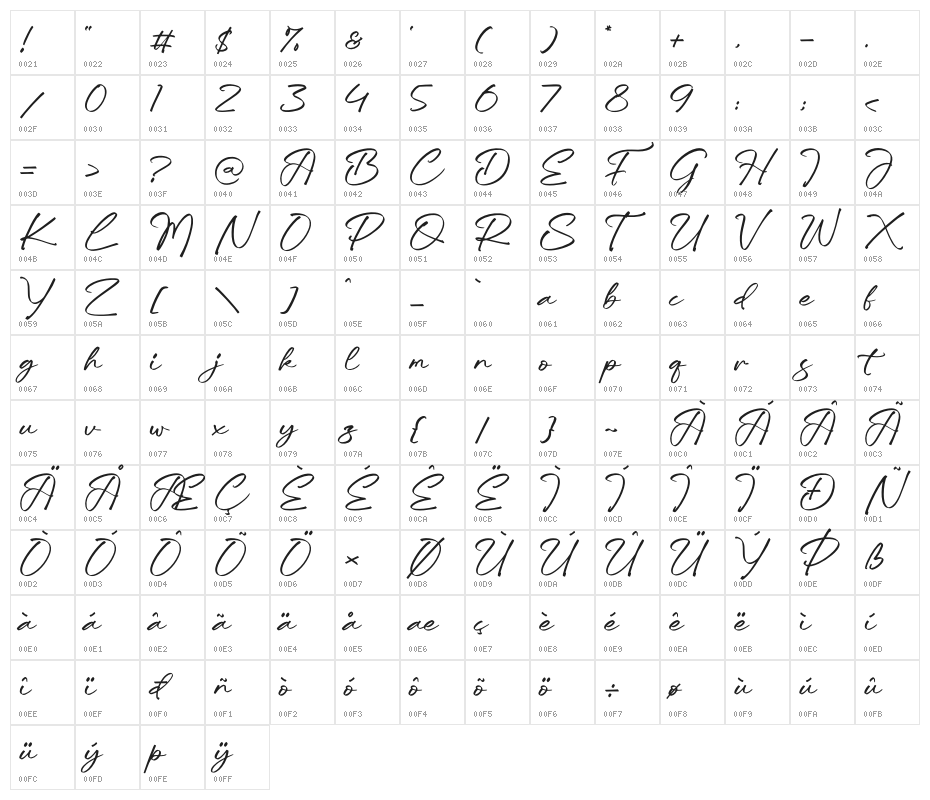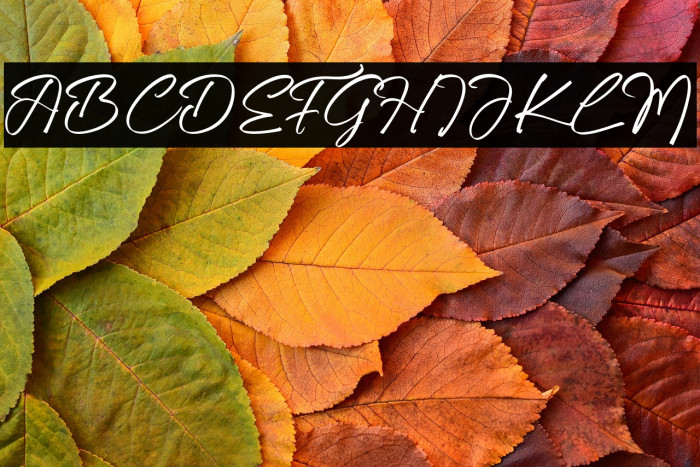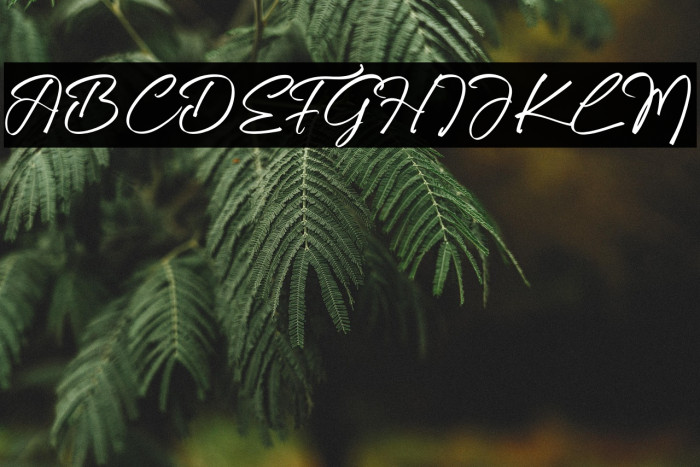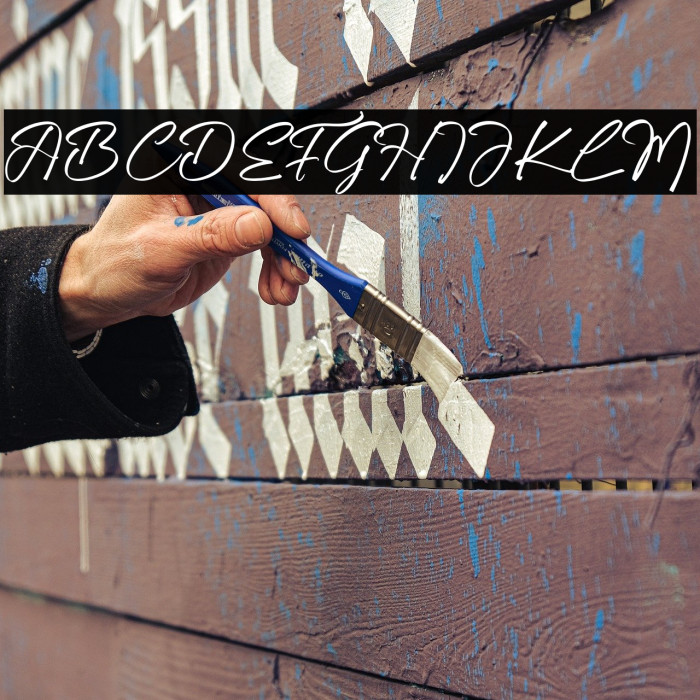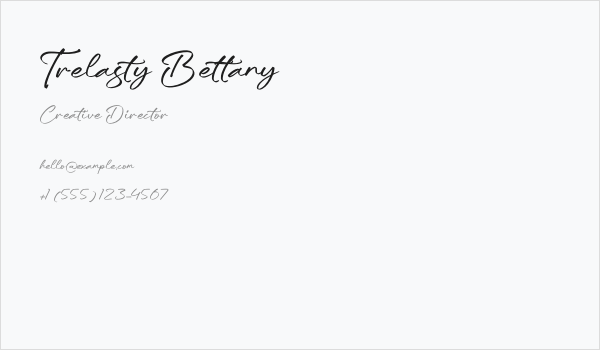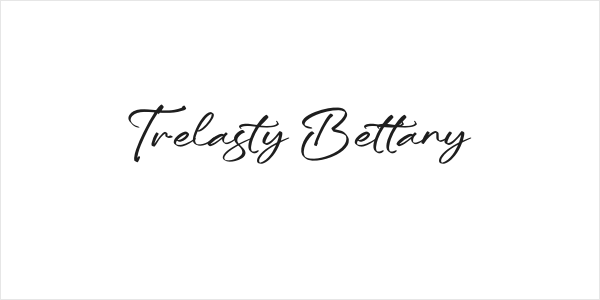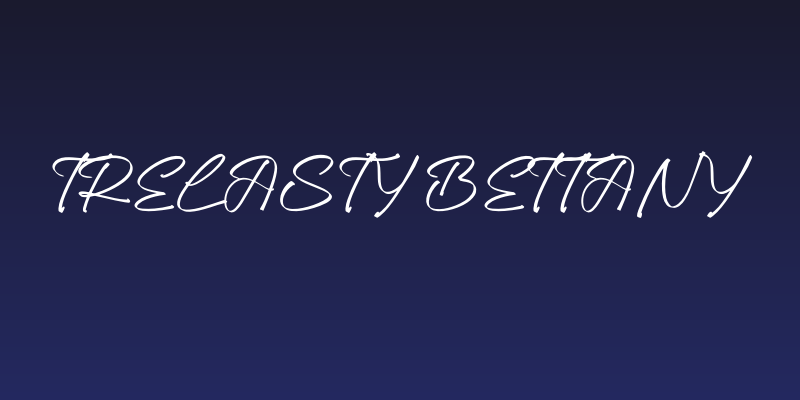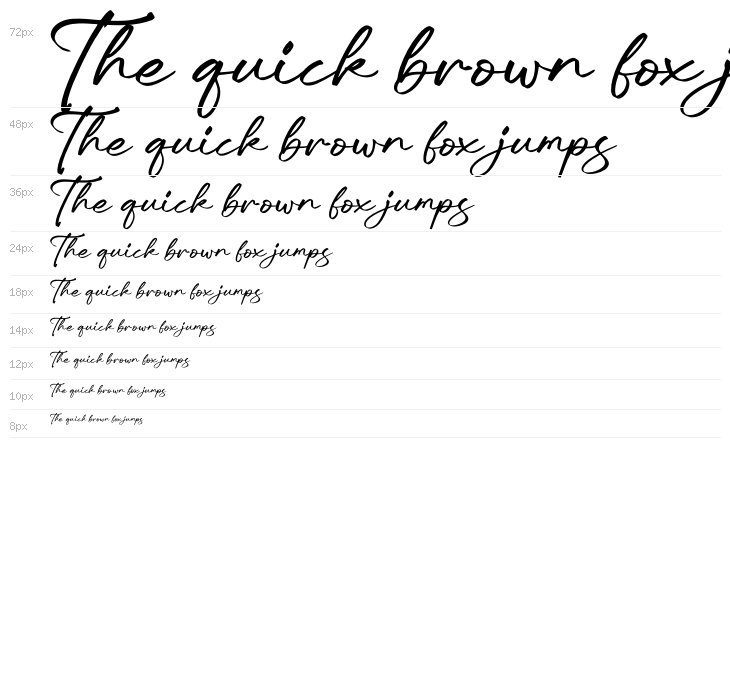
Trelasty Bettany Font
Trelasty Bettany Description
This font features an elegant, flowing script style that mimics natural handwriting. The characters are connected, creating a seamless and fluid appearance. The uppercase letters are slightly more embellished, with graceful loops and curves, while the lowercase letters maintain a consistent and smooth flow. The numerals and special characters are designed to match the overall aesthetic, ensuring a cohesive look across all text. The font's style is both sophisticated and approachable, making it suitable for a variety of applications.
| Overall Style | Elegant, Handwritten |
| Proposed Projects | Ideal for wedding invitations, greeting cards, personal branding, and elegant packaging designs. |